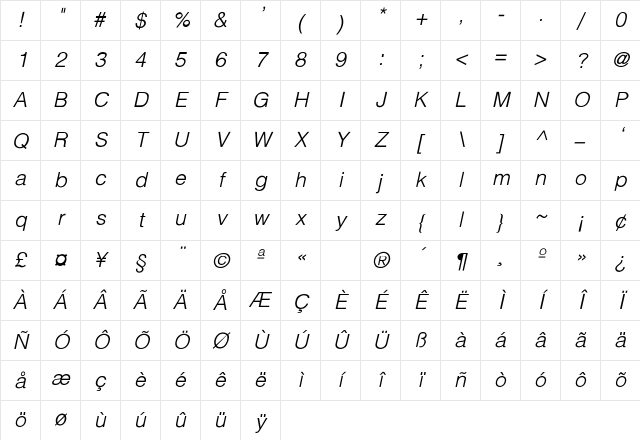
Partridge-Light-Light-Italic Regular
Design Context for Partridge-Light-Light-Italic
Partridge-Light-Light-Italic is a composed and adaptable typeface that performs quietly and consistently across a wide range of design contexts. The slanted form adds forward momentum and visual energy. Its slender proportions lend an understated elegance to any composition.
Pro Tip: Use Partridge-Light-Light-Italic for emphasis, pull quotes, and subheadings where its slanted energy can add rhythm to the layout.